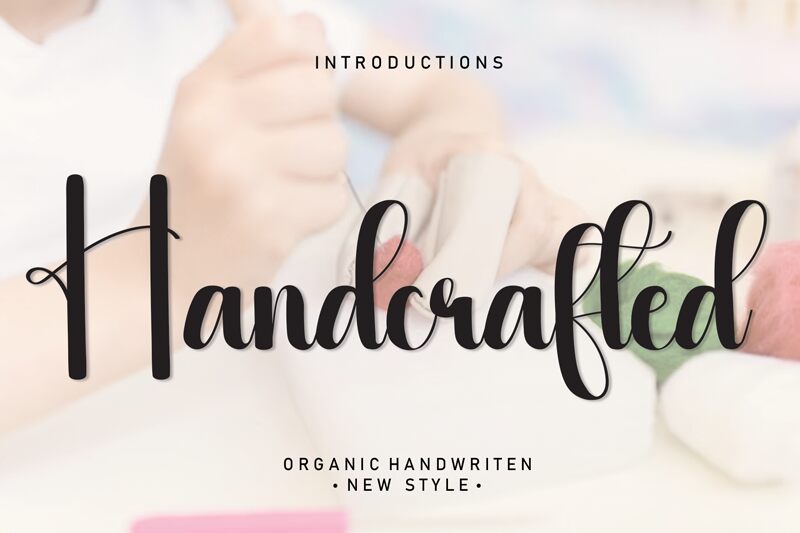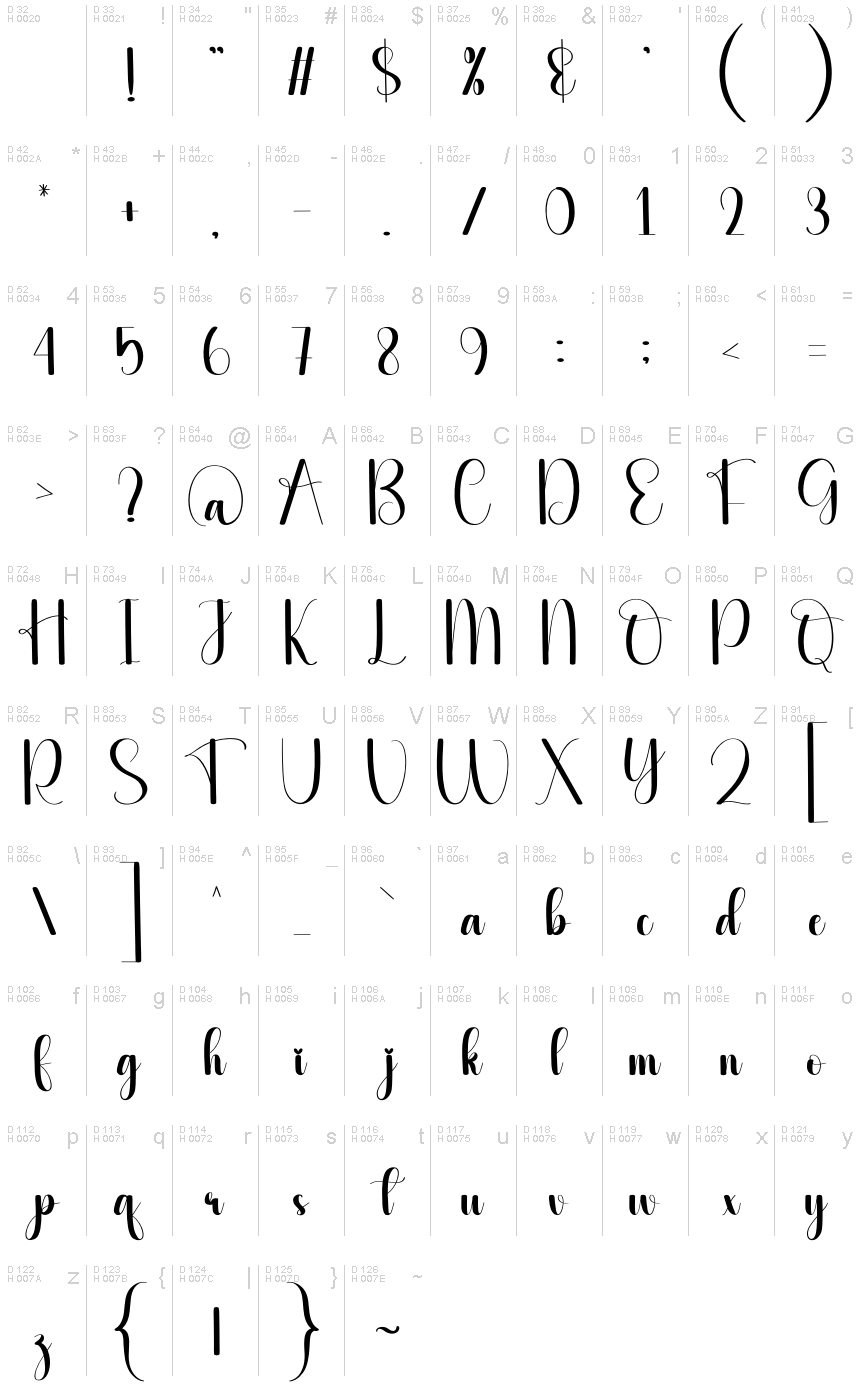
Handcrafted
Handcrafted font by Scratchones exudes a charming, artisanal quality that captures the essence of creativity and personal touch. Its flowing strokes and playful curves lend a warm, inviting appearance, making each letter feel uniquely expressive. The effortless elegance of this handwritten style radiates authenticity, perfect for projects that seek to convey a sense of warmth and individuality.
Ideal for invitations, branding, or artisanal packaging, Handcrafted thrives in contexts where personality matters. Whether used for quoting heartfelt sentiments or accentuating creative ventures, this font stands out with its delightful character and stylish flair, transforming any text into a genuine work of art.